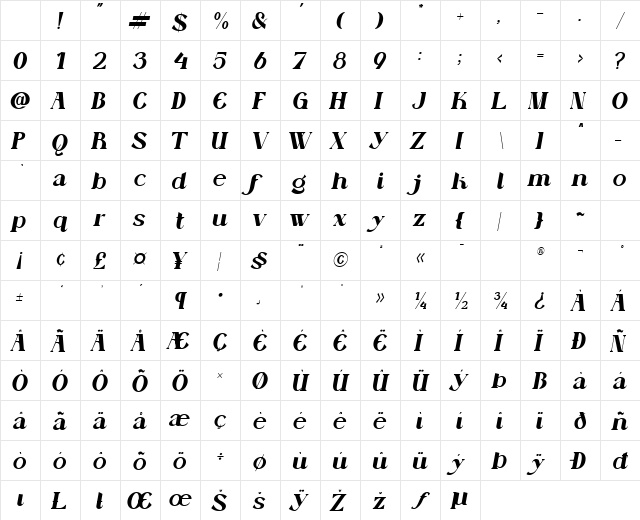
Distant Feeling is a composed and adaptable typeface that performs quietly and consistently across a wide range of design contexts. The slanted form adds forward momentum and visual energy.
Pro Tip: Use Distant Feeling for emphasis, pull quotes, and subheadings where its slanted energy can add rhythm to the layout.